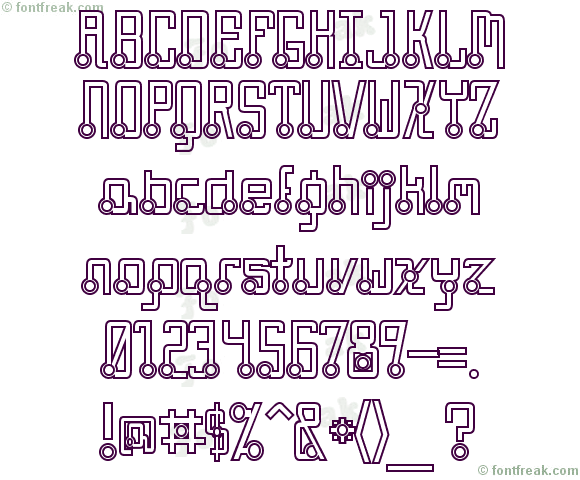
Quasidipitous
Quasidipitous Black Spot
Quasidipitous Hollow
About Quosidipitous
Quosidipitous by Omega Font Labs is a striking display font that captivates with its unique blend of bold, hollow forms and a playful aesthetic. As a freeware typeface, it offers an exciting opportunity for designers looking to add a distinctive flair to their projects without incurring costs. The font features a strong stroke weight combined with a noticeable contrast, creating an eye-catching visual dynamic. The open spaces within each character lend a sense of lightness, making it an excellent choice for designs that require both impact and readability.
The Quosidipitous font is particularly well-suited for various creative applications. Its whimsical style makes it ideal for wedding invitations, where it can convey a sense of joy and celebration. Additionally, it works wonderfully for movie posters, adding a modern twist that captures audiences' attention. Restaurant menus can also benefit from this font, as its unique character can enhance branding and create a memorable dining experience. Content creators, especially those in the lifestyle, fashion, or entertainment sectors, will find Quosidipitous an engaging font that resonates with their target audience.
Graphic designers will appreciate the versatility of Quosidipitous, as its decorative elements and bold presence can elevate any project. Small business owners looking to distinguish their brand will also find this font a valuable asset, allowing them to create memorable marketing materials.